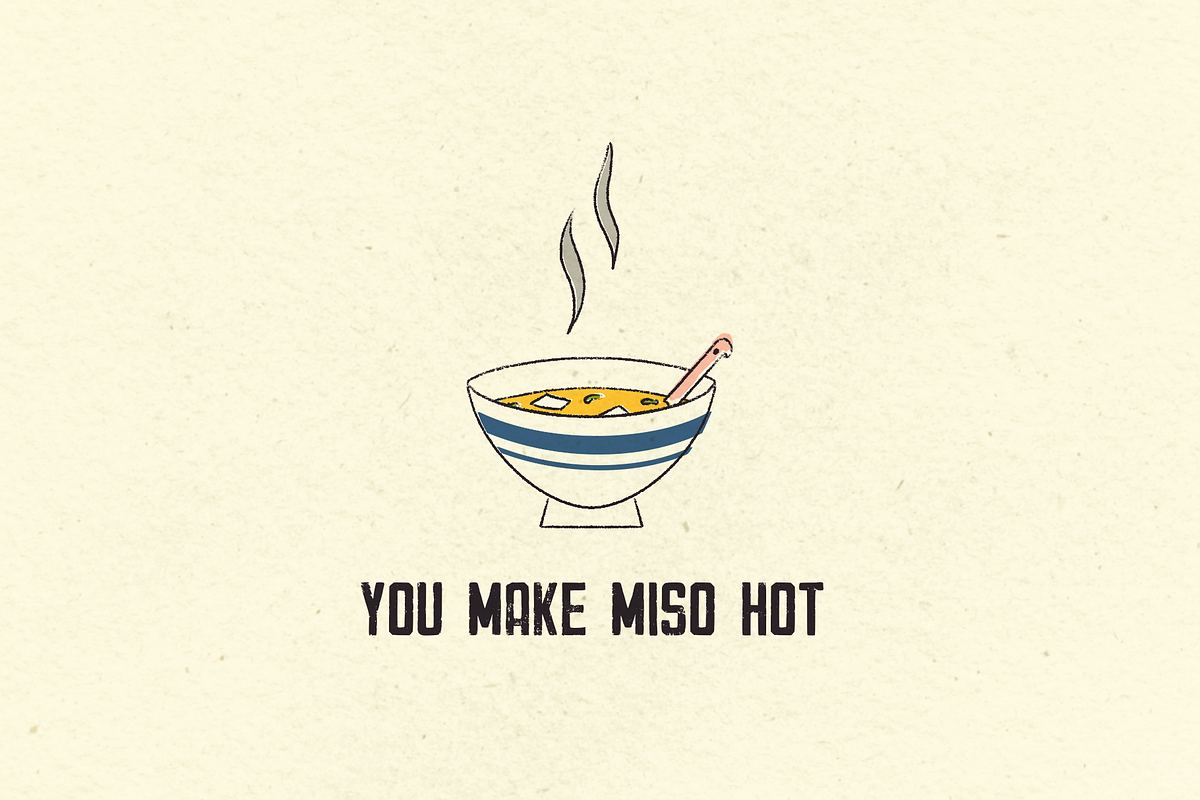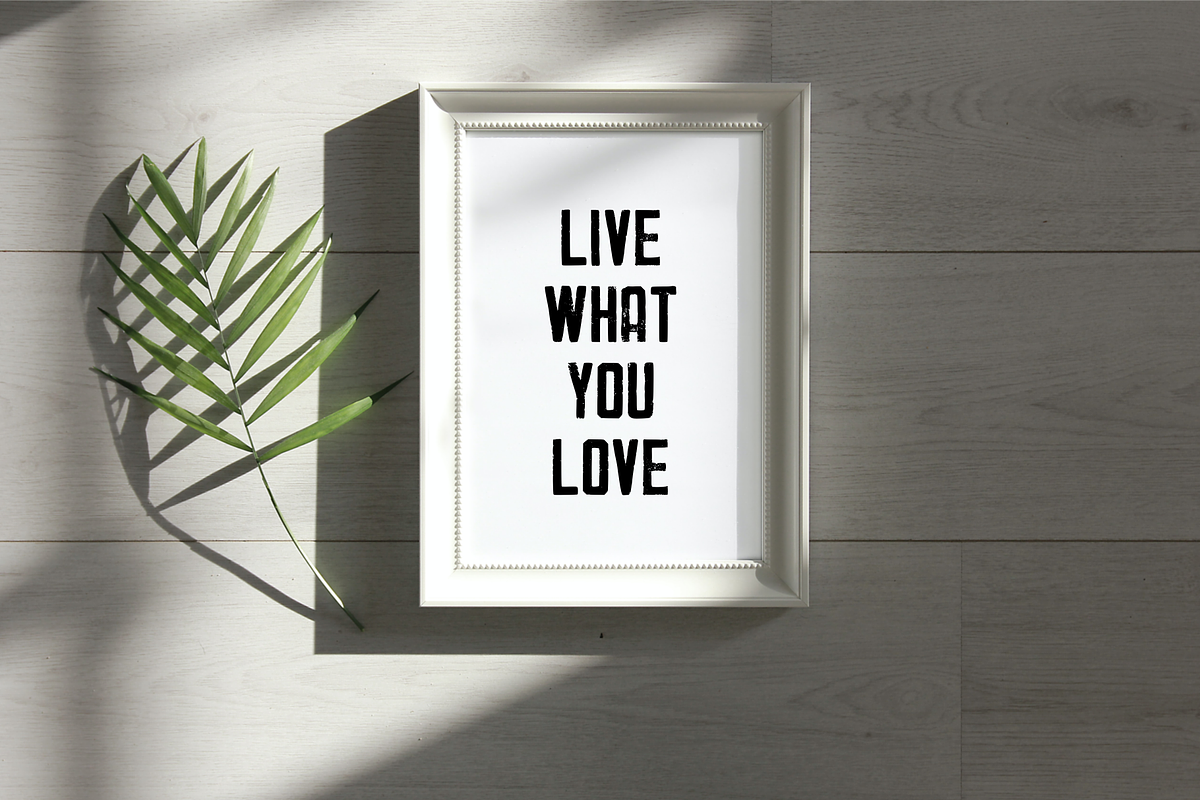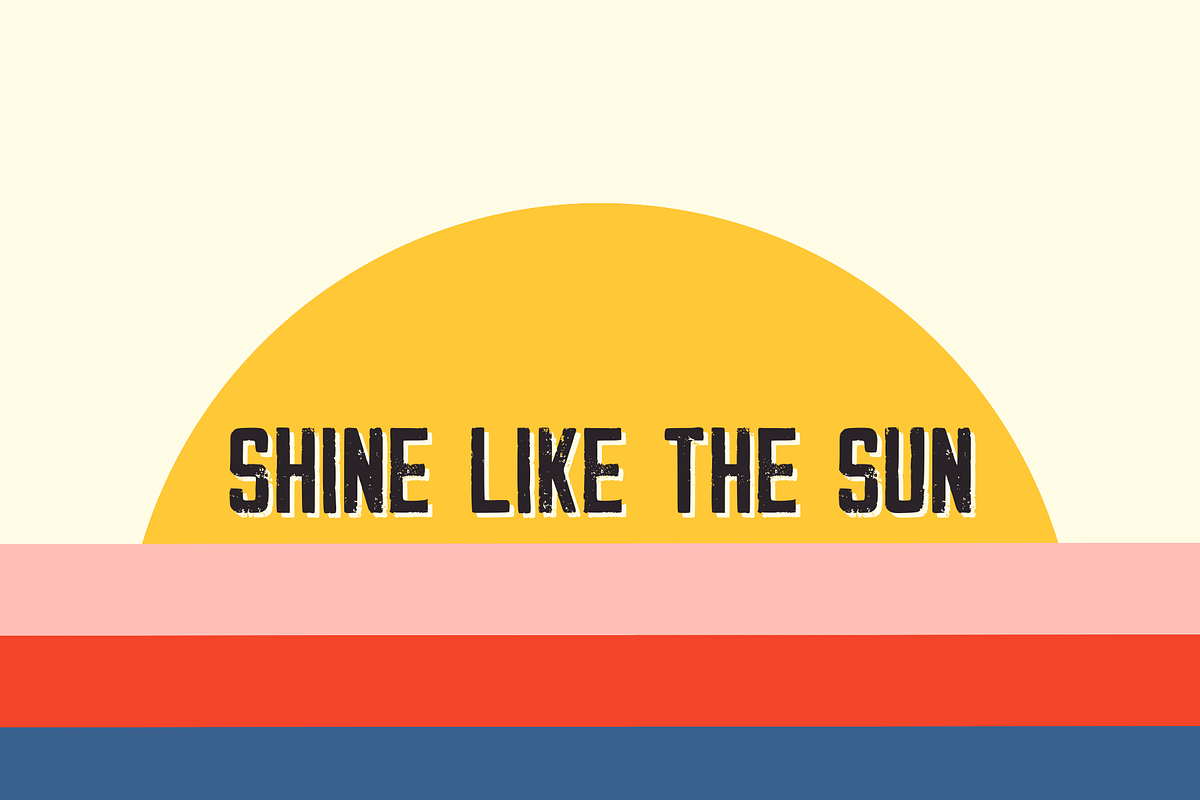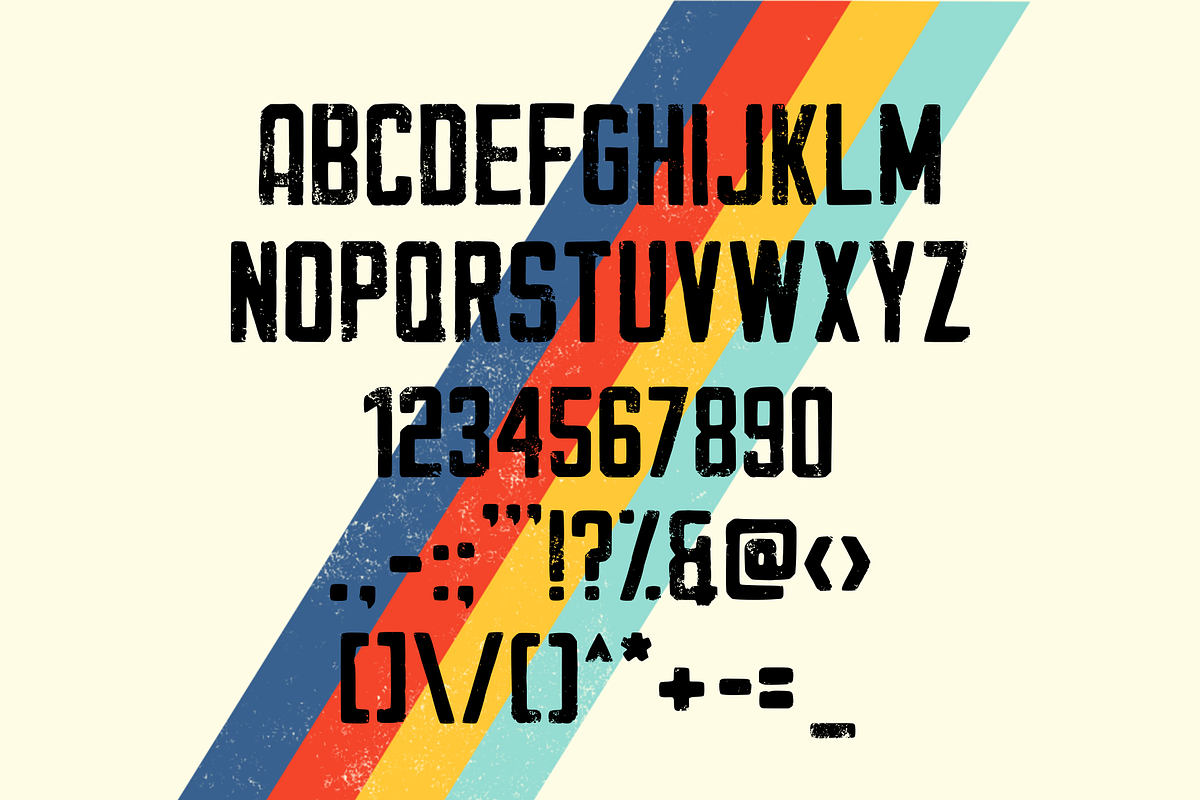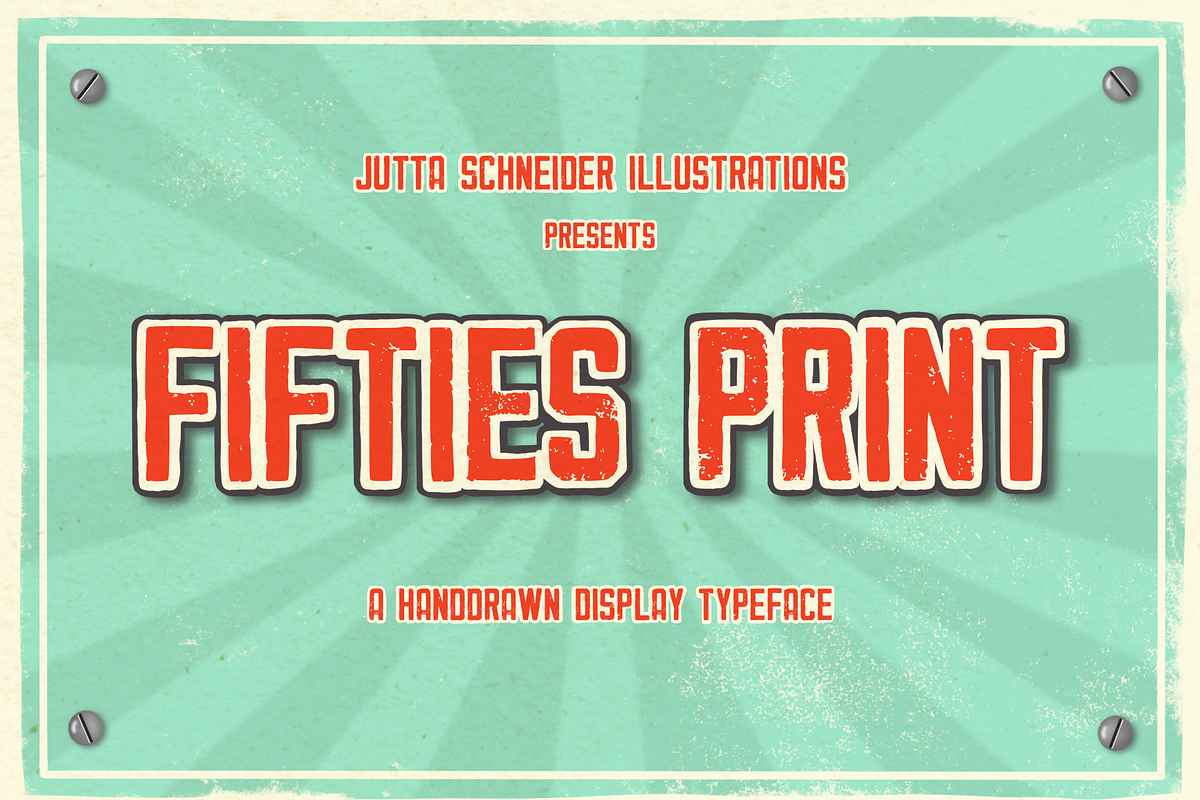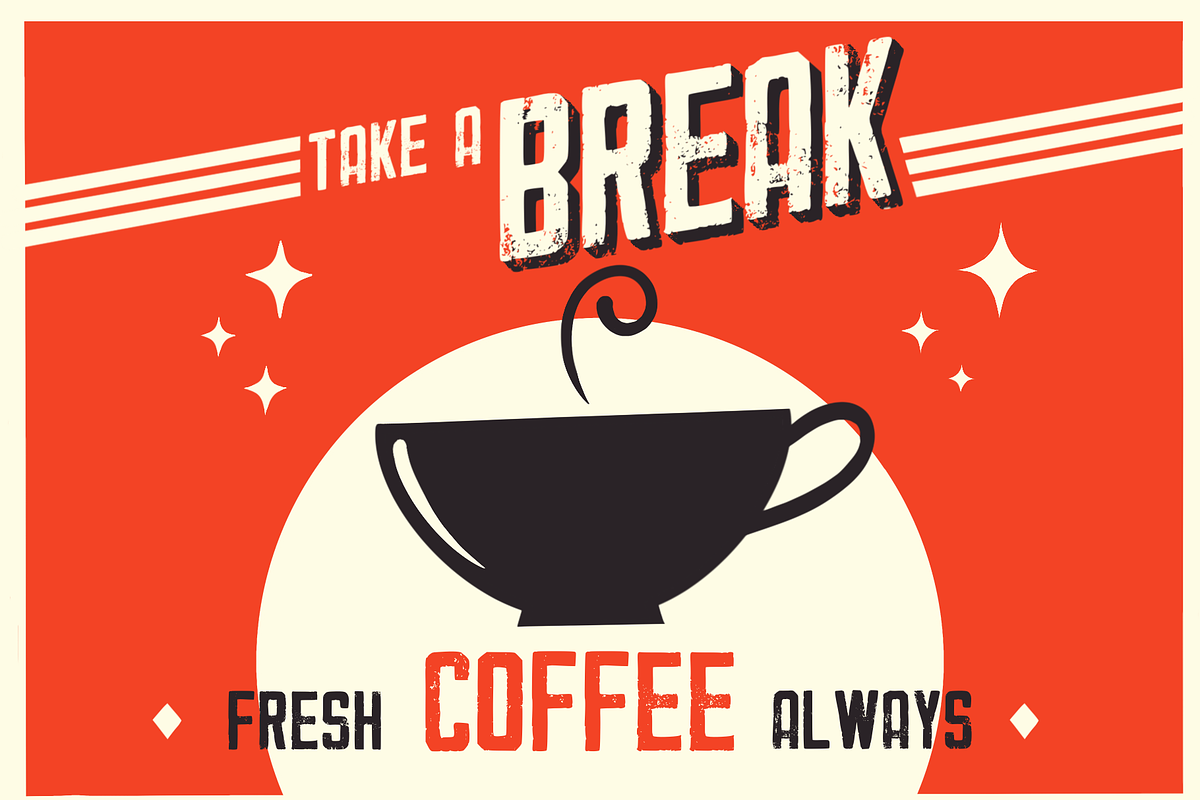
Fifties Print
‚Fifties Print‘ is a typical mid century font in screen printing style.
Every character has been carefully designed and hand drawn. It has the typical screen printed look due to its broken lines. Create wonderful cards, quotes, posters or include it into illustrations, memes and such. It even works great as a logo type, no matter if you go for a retro or modern design.
This is a versatile font that plays very well with its context. I included capitals as both upper and lower case characters as well as digits and punctuation, let me know if you wish for another set of characters in your language!